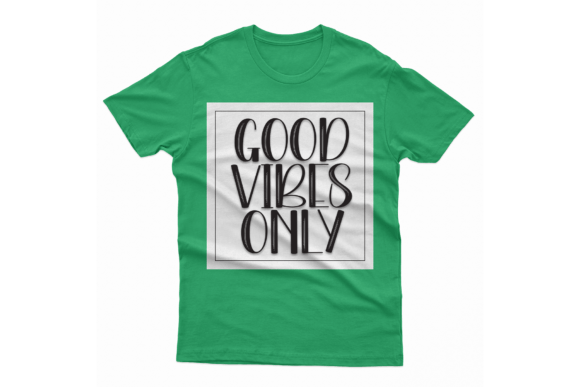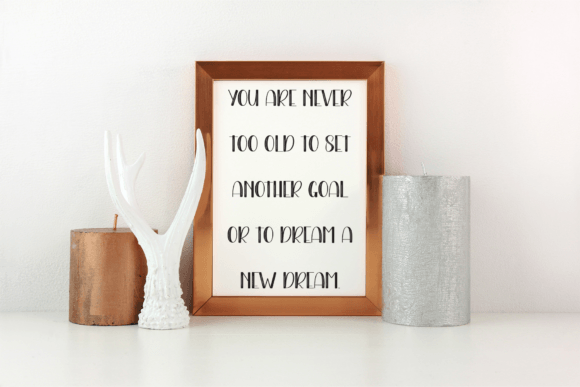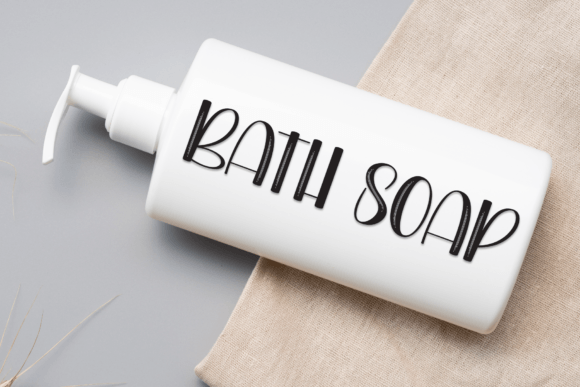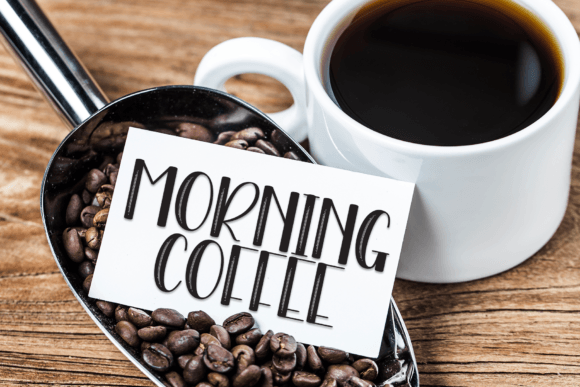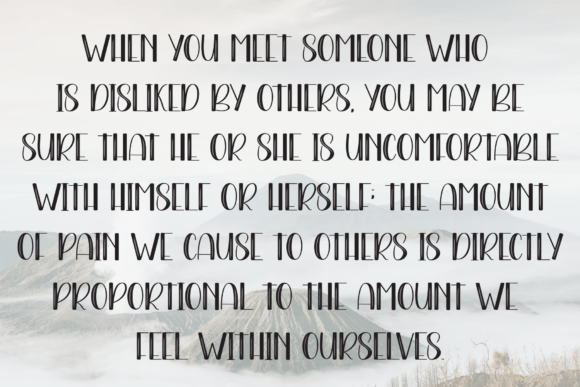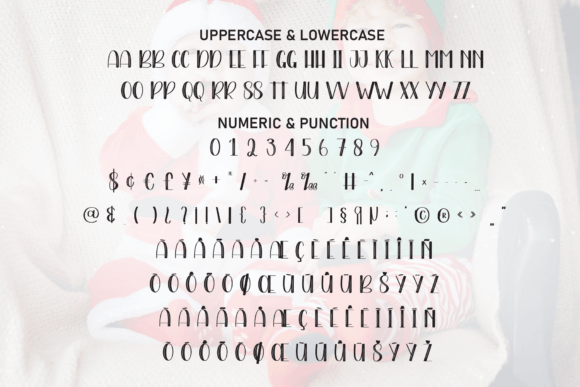
Unwrapping the Magic of Baby Christmas Font
It’s that time of year again when the air is filled with the sweet scent of pine, and the sound of jingling bells brings a smile to your face. As a designer, you’re probably already brainstorming ideas for holiday projects – perhaps a festive wedding invitation or a heartfelt Christmas card. And that’s where the Baby Christmas Font comes in – a hand-scripted display font that embodies the warmth and charm of the season.
This delightful font is more than just a pretty face; it’s a tool that adds a sprinkle of joy to your designs. Perfect for transforming an otherwise mundane composition into a visual treat, the Baby Christmas Font is a valuable addition to any designer’s toolkit. Whether you’re creating a holiday-themed design or simply looking to add a playful touch to your work, this font is sure to bring a smile to your clients’ faces.
Baby Christmas Font Key Features
- Unique Characteristics: Hand-drawn illustrations, playful and whimsical style, making it perfect for festive and holiday-themed designs.
Baby Christmas Font Review
Overall, I’d say the Baby Christmas Font is a charming addition to any holiday design project. It’s perfect for creating a whimsical and festive atmosphere.
- The font is incredibly versatile and can be used for a wide range of designs, from invitations to social media posts.
- The illustrations that come with the font are adorable and can be easily customized to fit your design needs.
- The font is highly legible, even at small font sizes, making it perfect for digital designs.
- The font is quite limited in terms of character options, which can make it difficult to use for longer blocks of text.
- The illustrations can be a bit too cartoonish for some tastes, which may not be suitable for more formal designs.
- The font may not be suitable for use on dark backgrounds, as the characters can be difficult to read.
The Baby Christmas Font is a delightful addition to any holiday design project, but it’s not without its limitations. While it’s perfect for shorter blocks of text and whimsical designs, it may not be suitable for more formal or longer texts. With a little creativity and customization, however, it can be a valuable asset in your design toolkit.
The “Baby Christmas Font” is perfect for creating festive and playful designs for:
- Holiday cards and gift tags
- Festive flyers and brochures
- Custom holiday decorations
- Playful social media graphics
Alternatives to “Baby Christmas Font” for Designers
Bebas Neue is a modern, clean sans-serif font that can be used for a variety of Christmas-themed designs. It’s ideal for projects that require a touch of sophistication and elegance. Unlike Baby Christmas Font, Bebas Neue doesn’t have a specifically “baby” or “childlike” feel, making it a better choice for more mature audiences.
Alex Brush is a beautiful, handwritten font that’s perfect for creating a warm and inviting atmosphere. It’s ideal for projects that require a more personal and emotive touch. Compared to Baby Christmas Font, Alex Brush has a more rustic and vintage feel, making it a great choice for designs that need a sense of nostalgia.